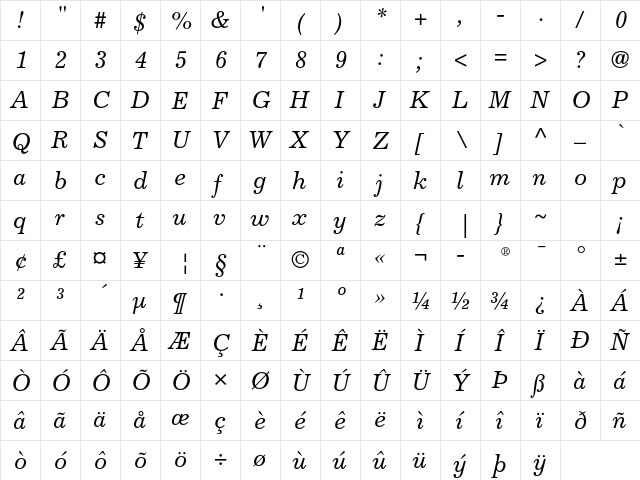
Excelsior LT Std Italic
| Designer | Chauncey H. Griffith |
Design Context for Excelsior LT Std Typeface
Excelsior LT Std is a composed and adaptable typeface that performs quietly and consistently across a wide range of design contexts. Its italic angle brings a sense of urgency and motion to the letterforms. The delicate stroke weight brings airiness and refinement to layouts.
Pro Tip: Try Excelsior LT Std for annotation and caption copy alongside an upright companion — the contrast in angle creates a dynamic but ordered typographic system.